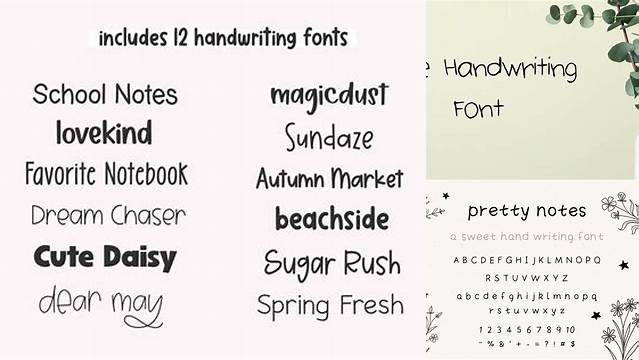
Cute Handwriting Font Generator: Your Guide
Hey guys! Ever scrolled through your feed and seen those adorable, unique captions or notes that just scream personality? Chances are, they were crafted using a cute handwriting font generator. It's like having a magic wand for your text, transforming boring Arial or Times New Roman into something whimsical, elegant, or downright playful. In this guide, we're diving deep into the world of these generators, exploring why they're so popular, how they work, and where you can find the best ones to jazz up your digital creations. Whether you're a social media guru, a crafter, a student, or just someone who loves pretty things, understanding how to use these tools can seriously level up your game. Let's get creative!
Why Everyone's Obsessed with Cute Handwriting Fonts
So, what's the big deal with these fonts, right? It's all about making your text stand out and convey emotion. In a world flooded with digital communication, a unique font can be the difference between a message that gets lost in the scroll and one that catches the eye and sparks joy. Think about it: a handwritten-style font can add a personal, warm touch to a birthday message, make a product description on Etsy feel more artisanal, or give your journal entries a distinct, creative flair. They evoke a sense of individuality and can instantly communicate a mood – be it playful, sophisticated, or a little bit quirky. Plus, let's be honest, they just look good. They break the monotony of standard fonts and inject a bit of visual interest that's hard to achieve otherwise. This obsession isn't just a fleeting trend; it's a reflection of our desire for personalization and aesthetic appeal in every aspect of our digital lives. Cute handwriting fonts are a simple yet powerful way to express yourself and make your content more memorable and engaging for your audience, guys. It’s like giving your words a stylish outfit!
Exploring Different Styles of Cute Handwriting Fonts
When we talk about cute handwriting fonts, it’s not just one-size-fits-all, you know? There’s a whole spectrum! You've got your bubbly and playful fonts, which are perfect for birthday cards or fun social media posts. Then there are the elegant and cursive-style fonts that bring a touch of sophistication, ideal for wedding invitations or more formal notes. Some fonts mimic a quick, scribbled note, giving off a super casual and relatable vibe, great for personal blogs or diary entries. Others might look like they were written with a brush pen, offering a more artistic and flowing feel. And let's not forget the chunky and bold handwriting fonts that make a statement and are fantastic for headlines or logos. The beauty of a good cute handwriting font generator is that it often offers a variety of these styles, allowing you to pick the exact aesthetic you're going for. It's all about matching the font's personality to the message you want to send. Guys, exploring these different styles is half the fun – it’s like window shopping for the perfect digital accessory for your words!
The Magic Behind Font Generators: How They Work
Ever wondered how those cute handwriting font generators actually churn out all those cool text styles? It's pretty neat, actually! At their core, these generators use algorithms and pre-designed font files. When you type your text into the generator, it takes each character you input and replaces it with its corresponding character from the chosen font file. Think of it like a digital substitution cipher, but way more stylish! The font files themselves are created by designers who meticulously draw each letter, number, and symbol. Some fonts are designed to look like natural handwriting, with slight variations in stroke and baseline, mimicking the human touch. Others might be more stylized, with exaggerated loops or playful flourishes. The generator then provides a user-friendly interface to let you preview and select from a library of these pre-made fonts. Some advanced generators might even allow for subtle customizations, like adjusting spacing or adding a slight shadow effect. It’s not AI creating new fonts on the fly in most cases, but rather a clever way to access and apply a vast collection of existing, beautifully designed handwriting fonts. It makes applying unique typography accessible to everyone, no coding or design software needed, guys!
Using Cute Handwriting Fonts for Social Media Captions
Alright, let's talk social media, because this is where cute handwriting fonts really shine, guys! If you're looking to make your Instagram, TikTok, or Facebook posts pop, incorporating these fonts into your captions is a game-changer. Imagine a beautiful travel photo with a caption in an elegant script font, or a funny meme with a playful, bold font that amplifies the humor. These fonts add a layer of visual storytelling that standard text just can't match. They can help define your brand's personality – are you chic and sophisticated, or fun and quirky? Your font choice speaks volumes! When crafting your captions, consider the overall aesthetic of your profile. A consistent use of a particular style of cute handwriting font can create a cohesive and visually appealing feed. Tools like Canva or even simple online font generators allow you to type your caption, choose your desired font, and then copy and paste the stylized text directly into your social media platform. Remember to keep readability in mind, though! While fancy is great, make sure your followers can still easily read your message. Cute handwriting fonts are perfect for adding that extra sparkle and making your social media presence unforgettable.
Finding the Best Cute Handwriting Font Generator Online
Elevating Your Digital Art with Cute Handwriting Fonts
For all you digital artists out there, cute handwriting fonts are not just for text; they're another tool in your creative arsenal! Think about adding a signature to your artwork in a beautiful script font, or perhaps creating stylized text-based art pieces. These fonts can be incorporated into digital collages, illustrations, or even graphic designs for posters and social media graphics. They add a unique, human element that can make digital creations feel more personal and less sterile. Imagine a digital sticker pack with cute phrases written in various handwriting styles, or a digital planner with dates and notes in charming fonts. Many graphic design software programs like Adobe Photoshop or Illustrator allow you to import font files, so you can use your favorite downloaded cute handwriting fonts directly within your projects. You can even manipulate these fonts, changing colors, adding textures, or warping them to fit your artistic vision. Cute handwriting fonts offer a fantastic way to infuse personality and artistic flair into any digital creation, making your work stand out and resonate more deeply with your audience, guys.
Cute Fonts for Cricut and Crafting Projects
Calling all crafters, guys! If you're a Cricut or Silhouette user, you know that font choice is everything. Cute handwriting fonts are absolute gold for crafting projects. Whether you're making custom t-shirts, personalized mugs, vinyl decals for your walls, or intricate paper crafts, the right font can elevate your project from homemade to haute couture. Many Cricut users specifically search for fonts that are easy to cut, meaning they don't have overly thin lines or extremely complex details that might cause issues with the machine. Fonts that mimic a natural, flowing handwriting style are particularly popular for adding that personal, handmade touch. When selecting a cute handwriting font for your Cricut, it's often best to download font files (like .TTF or .OTF) and upload them directly into your Cricut Design Space software. This ensures maximum compatibility and allows you to use the font offline as well. Look for fonts described as 'SVG-friendly' or 'craft-friendly' if possible. Cute handwriting fonts can transform a simple project into a unique keepsake, adding charm and personality that buyers or recipients will absolutely adore. Get creative and let these fonts add that special something!
Creating Cute Digital Journals and Planners
Journaling and planning are huge right now, and if you're going digital, you need cute handwriting fonts in your life, guys! Digital journals and planners offer so much flexibility, and using charming fonts allows you to personalize them down to the last detail. Imagine your digital planner with headings in a bold, script font, daily to-do lists in a neat, handwritten style, and inspirational quotes scattered throughout in elegant cursive. It makes the planning process feel so much more enjoyable and visually stimulating. You can use these fonts in apps like GoodNotes, Notability, or even in digital scrapbooking software. When designing your own digital journal pages or planner layouts, incorporating different cute handwriting fonts can help organize information and add aesthetic appeal. Use a more decorative font for titles and a simpler, cleaner handwriting font for body text to ensure readability. Cute handwriting fonts can make your digital planning space feel uniquely yours, turning mundane tasks into a delightful visual experience and keeping you motivated to stay organized. It's all about making it pretty and functional!
The Art of Pairing Fonts: Combining Cute with Classic
Want to take your designs up a notch, guys? Learn the art of font pairing! Combining a cute handwriting font with a more classic or neutral font can create a visually dynamic and balanced design. For example, use a playful script font for your main heading or a key quote, and then pair it with a clean, readable sans-serif font (like Open Sans or Lato) for the body text. This contrast draws attention to the